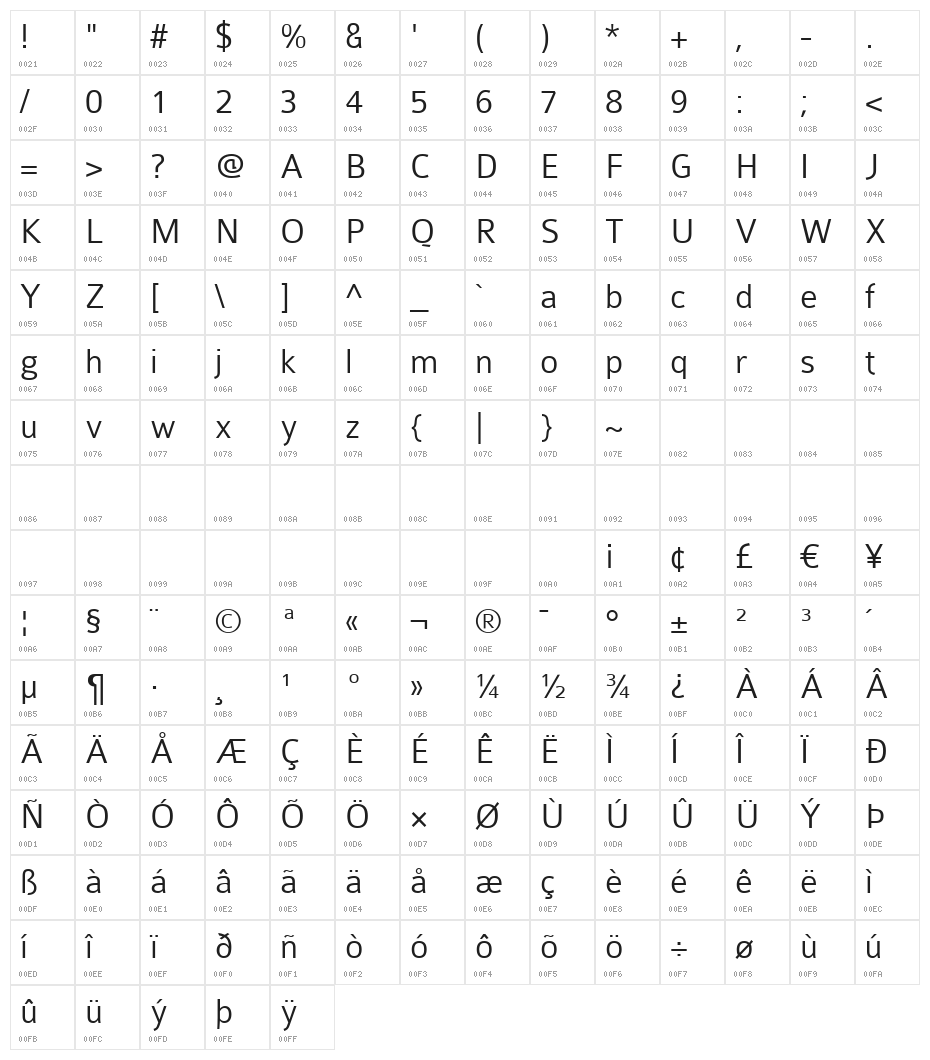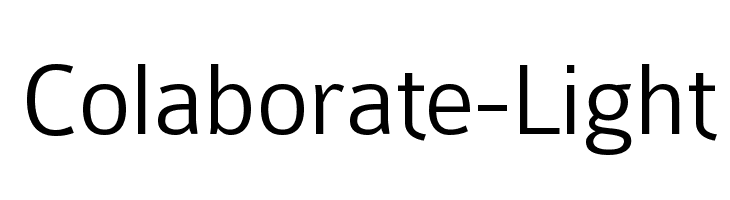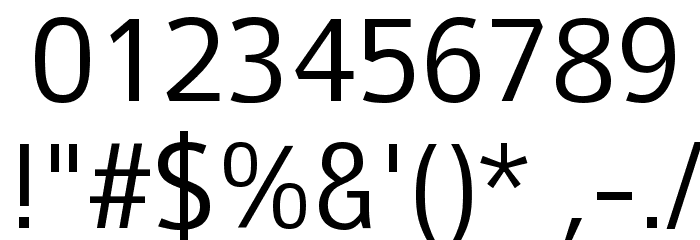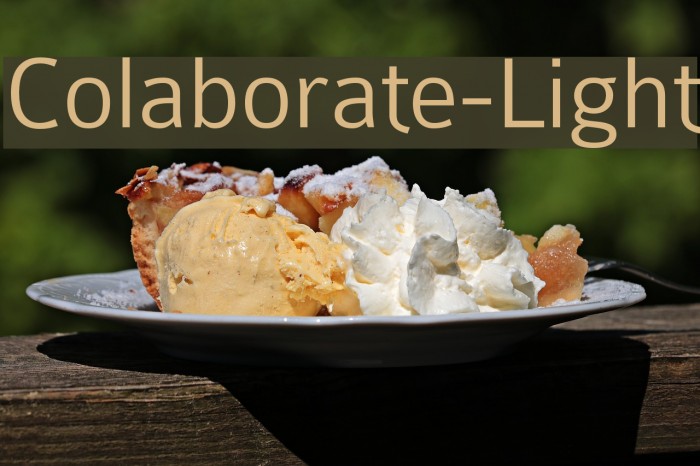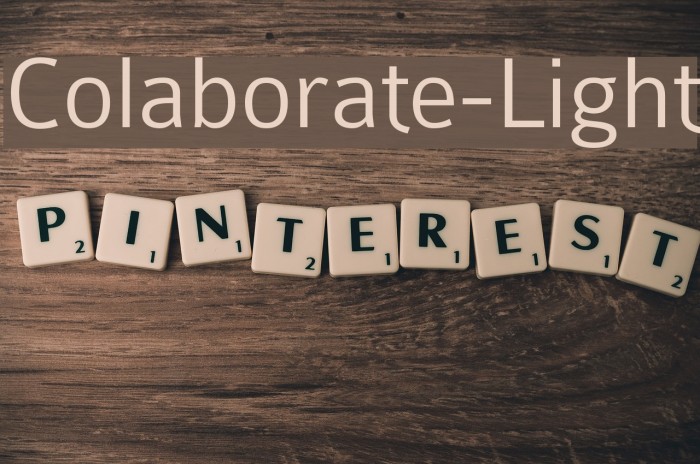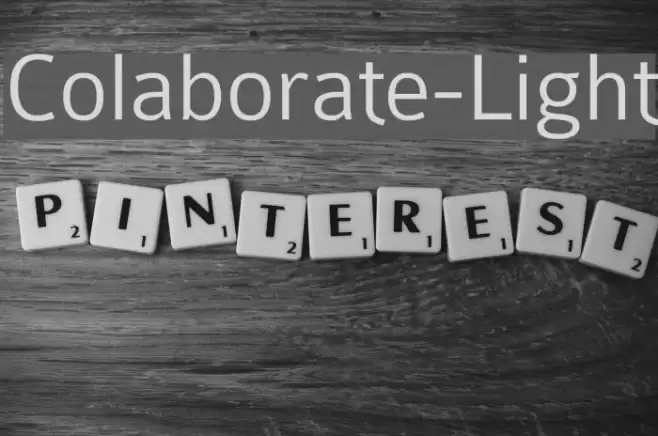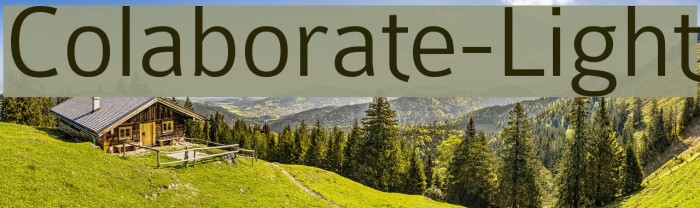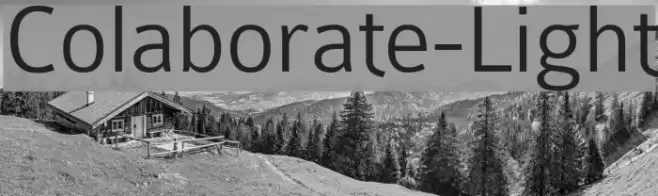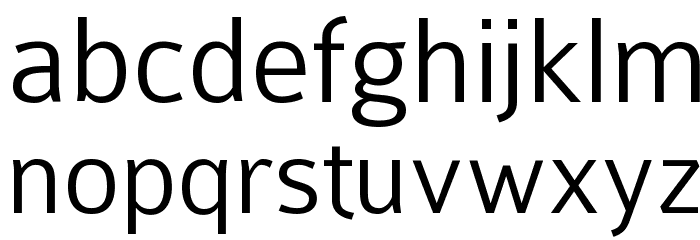
Colaborate-Light Font
Colaborate-Light Description
This font exhibits a clean and modern sans-serif style, characterized by its light weight and minimalistic design. The characters are well-proportioned with a consistent stroke width, providing a sleek and professional appearance. The uppercase letters are slightly taller than the lowercase, offering a balanced and harmonious look. The numerals are clear and easily distinguishable, making them suitable for a variety of applications. Special characters are designed with the same attention to detail, ensuring uniformity across the typeface. The overall design is versatile, making it ideal for both digital and print media.
| Use Case | Headlines, Body text, Logos |
| Proposed Projects | Ideal for corporate branding, web design, user interfaces, and editorial layouts. |